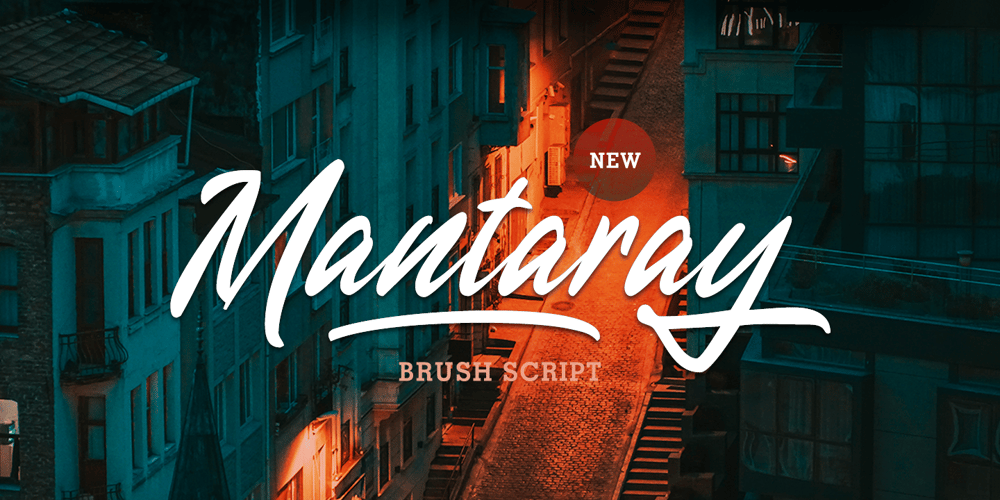
Mantaray Font Family was designed by Hendry Juanda and published by Letterhend. Mantaray contains 1 styles and family package options. Introducing, Mantaray – a brush script which is purposely made for headline, display or logotype. This type of font perfectly made to be applied especially in logo, and the other various formal forms such as invitations, labels, logos, magazines, books, greeting / wedding cards, packaging, fashion, make up, stationery, novels, labels or any type of advertising purpose.Features : uppercase & lowercase numbers and punctuation multilingual alternates, swashes & ligatures PUA encoded We highly recommend using a program that supports OpenType features and Glyphs panels like many of Adobe apps and Corel Draw, so you can see and access all Glyph variations.